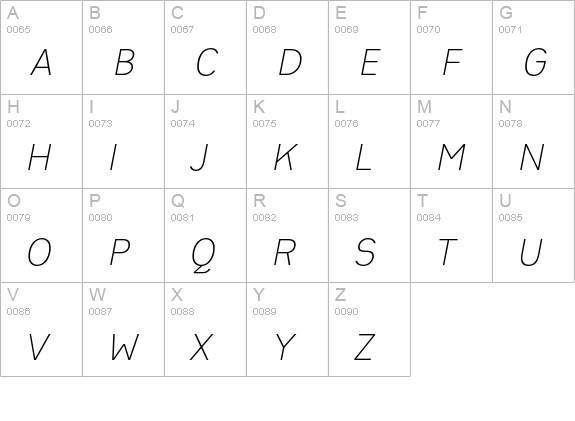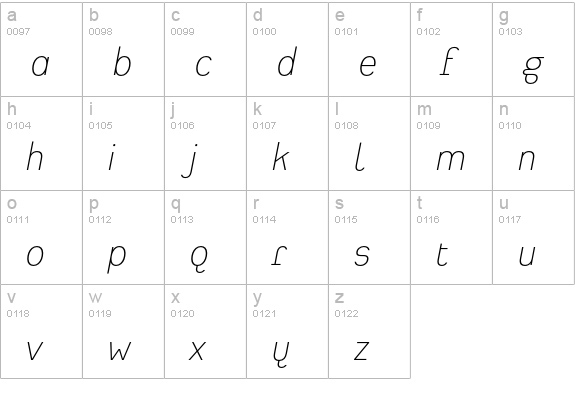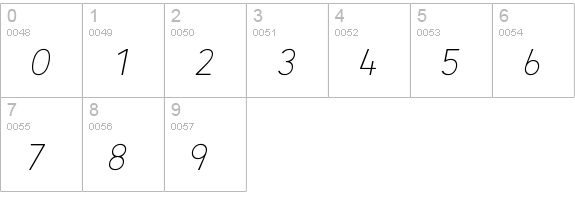
HeimatSans-ExtraLightIt font is a stunning display typeface that exudes elegance and sophistication. With its delicate lines and minimalist design, this font is perfect for creating a modern and refined look in your projects. The extra light weight of HeimatSans-ExtraLightIt adds a touch of sophistication and airiness, making it ideal for titles, headings, and branding materials. What sets HeimatSans-ExtraLightIt apart is that it is not only beautiful but also freely available to download at FontsMarket.com. This means that you can access this premium font without any cost, making it a valuable addition to your font library. Whether you're designing a website, print materials, or any other creative project, HeimatSans-ExtraLightIt will bring a touch of elegance and style to your work. Elevate your designs with this exquisite font today!